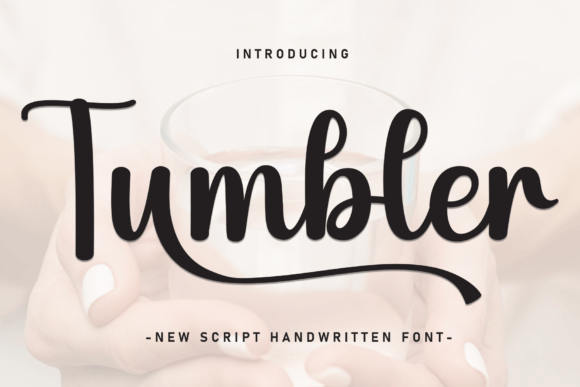
Unleash the charm of handwritten elegance with Tumbler Font, a delightful script font family that exudes warmth and personality. Created by the talented William Jhordy, Tumbler is the perfect choice for adding a touch of whimsy and playfulness to your creative projects.
Immerse yourself in the beauty of Tumbler's flowing curves and delicate strokes, reminiscent of a heartfelt letter penned by a dear friend. This font's unique character lends an air of approachability and authenticity to your designs, making it ideal for capturing the essence of special occasions like weddings, birthdays, and anniversaries.
With Tumbler Font, you'll have the power to transform ordinary words into extraordinary works of art. Whether you're crafting heartfelt invitations, designing captivating posters, or creating personalized cards, Tumbler's versatile style will elevate your designs to new heights.
Picture the joy on your loved ones' faces as they receive an invitation adorned with Tumbler's charming script. Let the font's playful personality shine through in your wedding stationery, adding a touch of magic to your special day.
Tumbler Font is not just a collection of letters; it's an expression of your unique style and creativity. It's a font that speaks to the heart, evoking emotions and creating lasting memories.
So, embrace the charm of Tumbler Font and let your creativity flow. Experience the joy of creating designs that captivate, inspire, and leave an unforgettable impression. Let Tumbler Font be your partner in creating visual masterpieces that speak volumes.